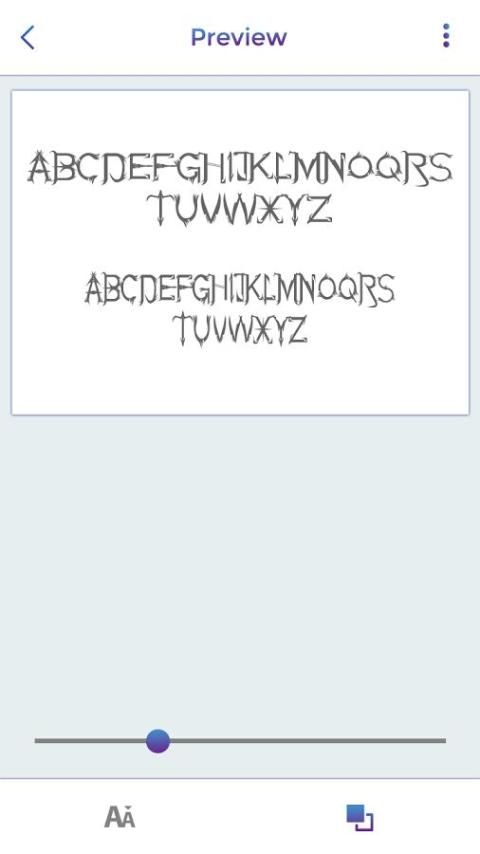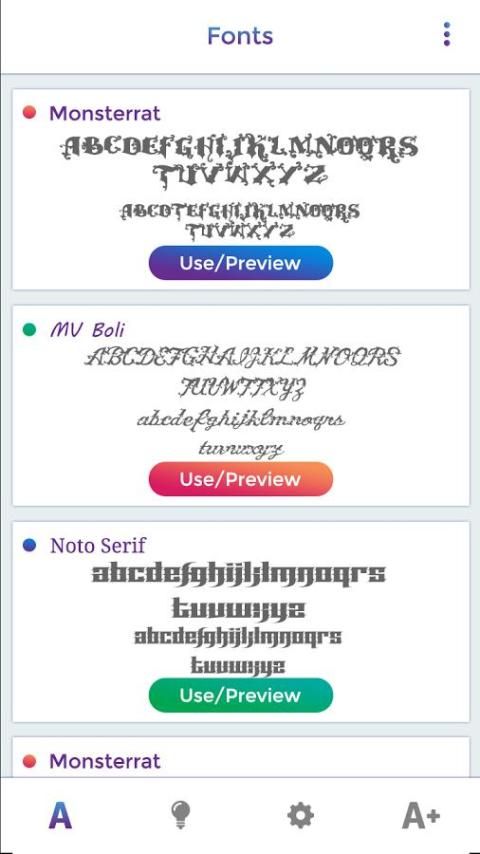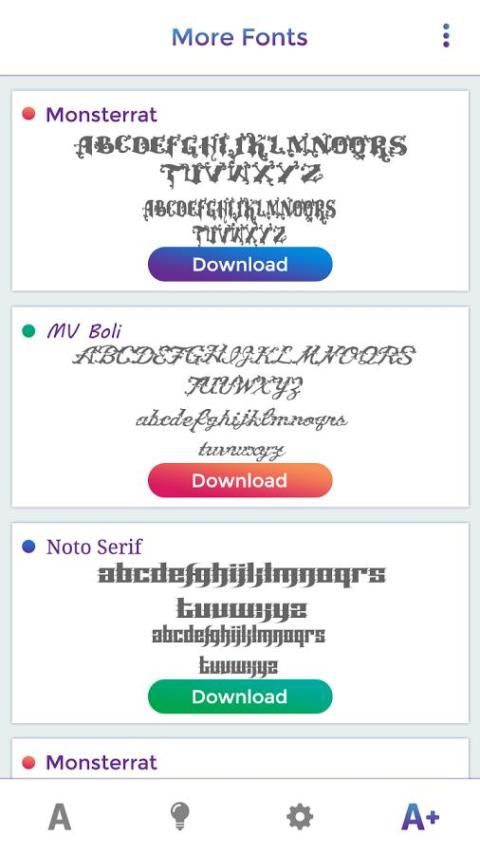
Free Tatoo Fonts Style
Description of Free Tatoo Fonts Style
Free Tatoo Font Style
application you can change your font style with different stylish fonts.
Free Tatoo Font Style
is a unique font manager for android devices.
Free Tatoo Font Style
provide number of stylish fonts, funny, cool, cute, Free Tatoo etc..
Free Tatoo Font Style
1. Numbers of the cool and funny fonts.